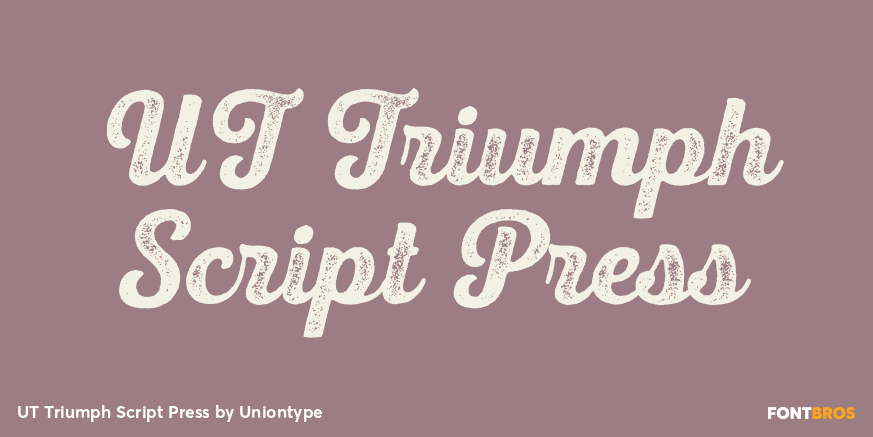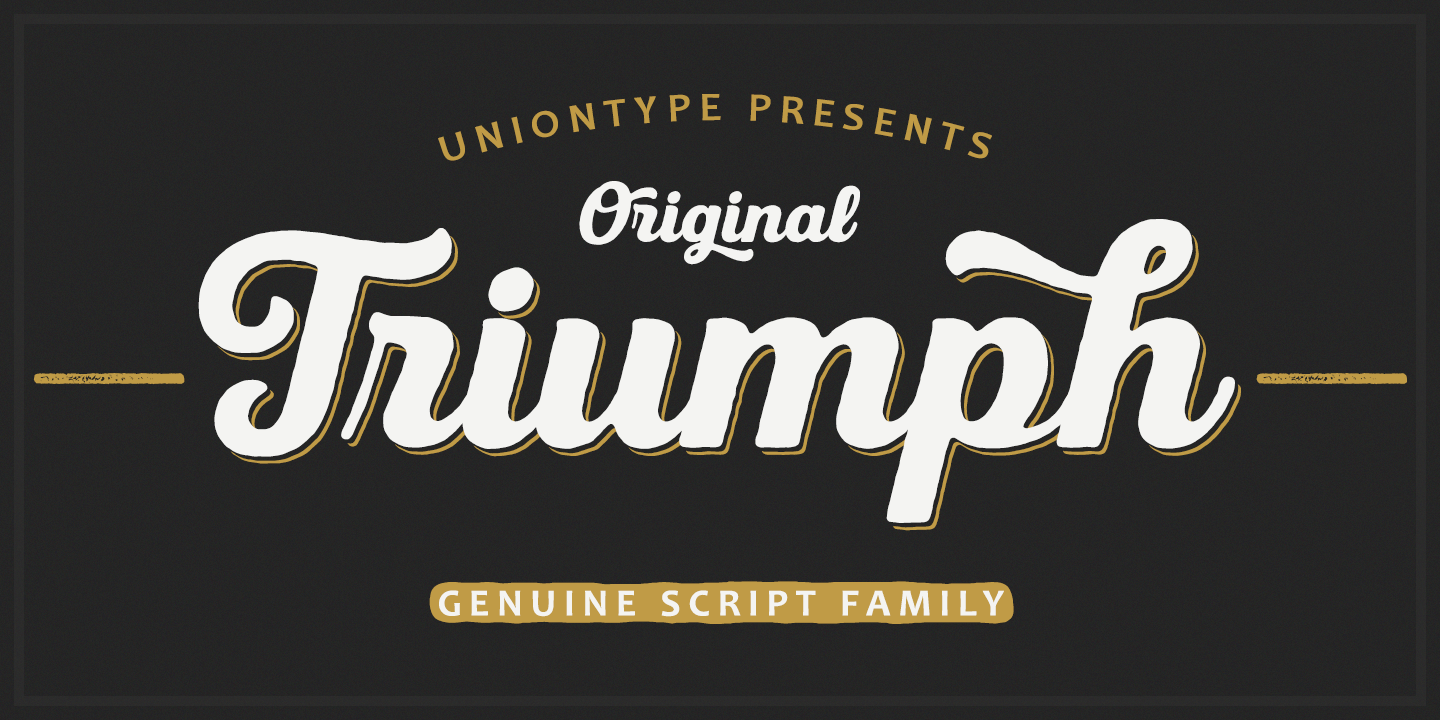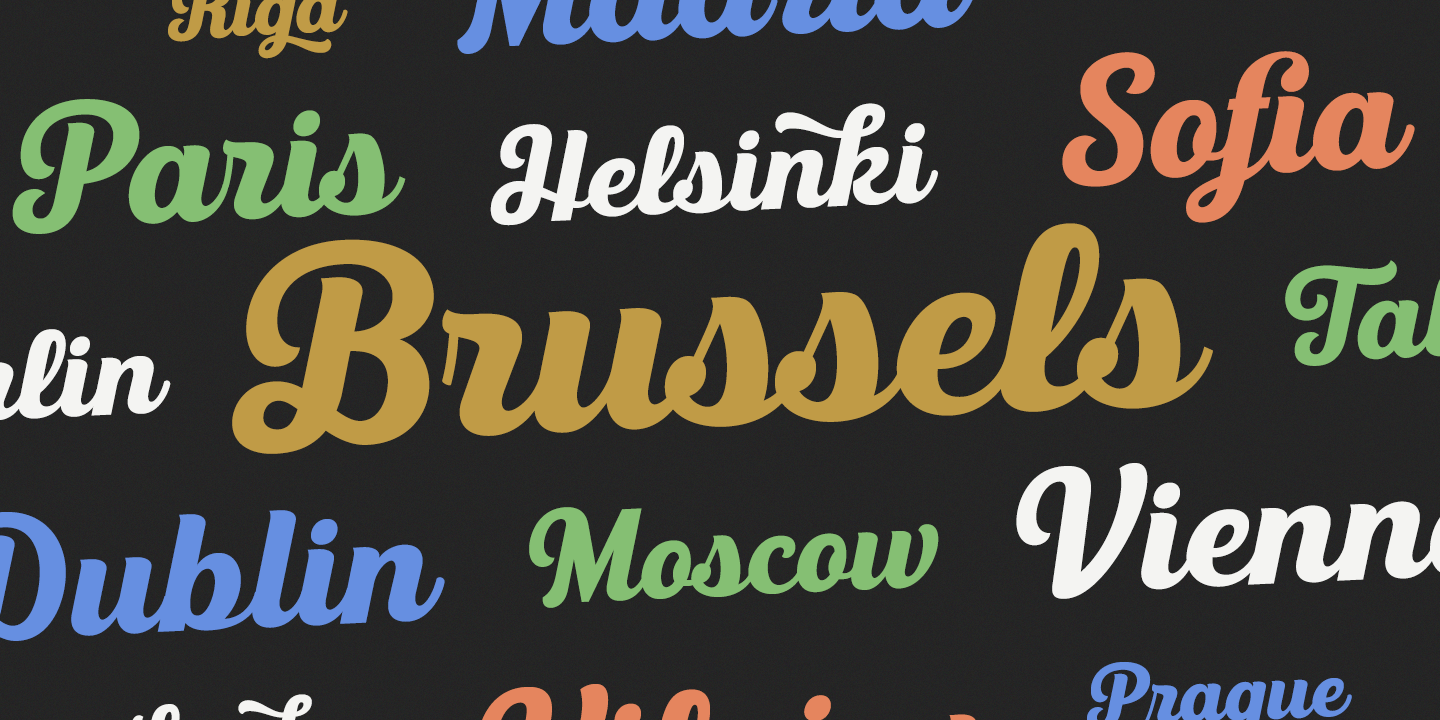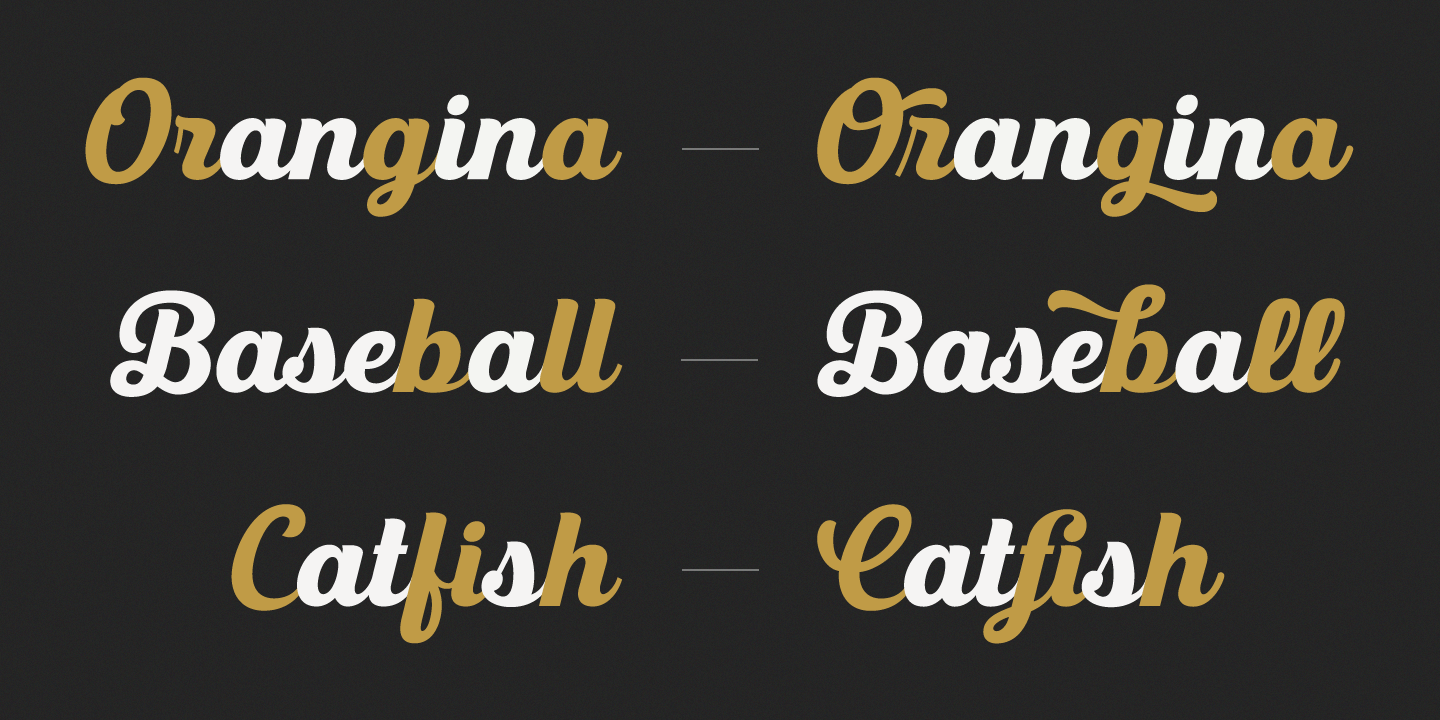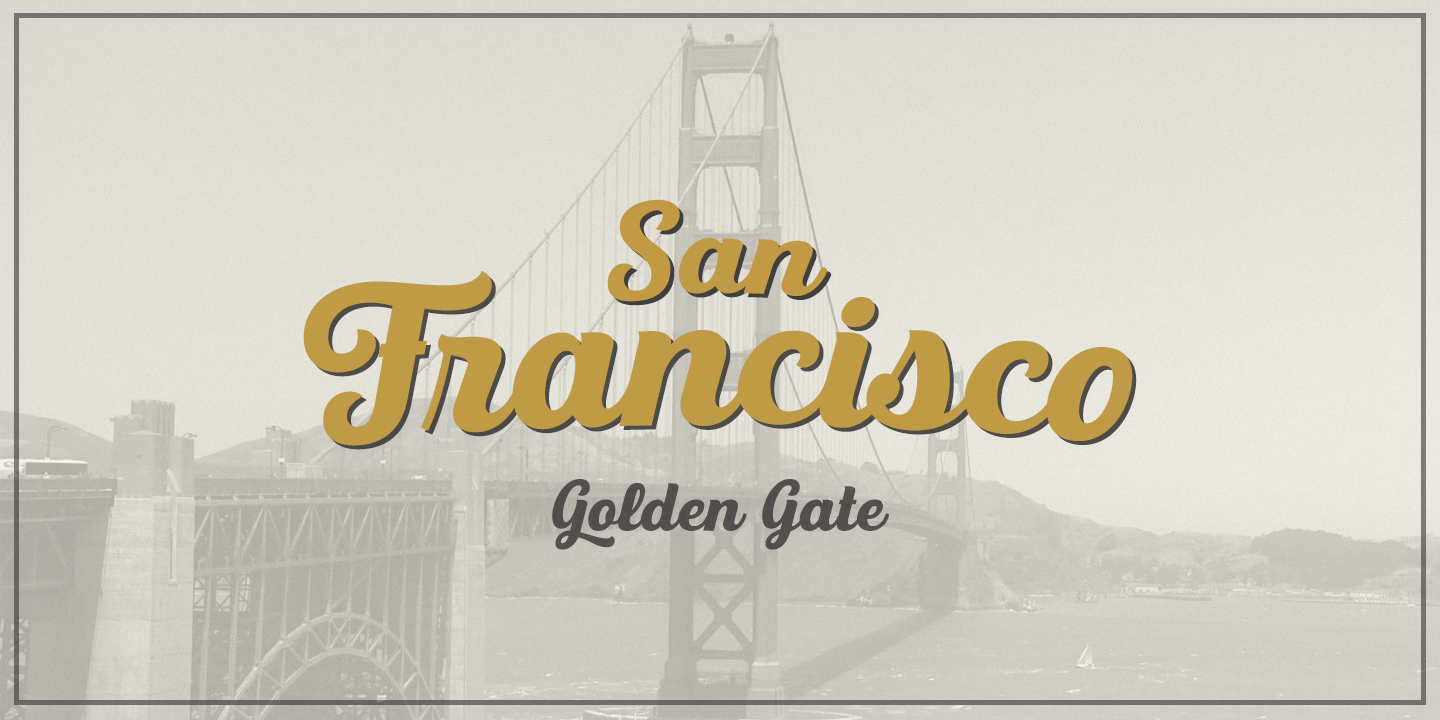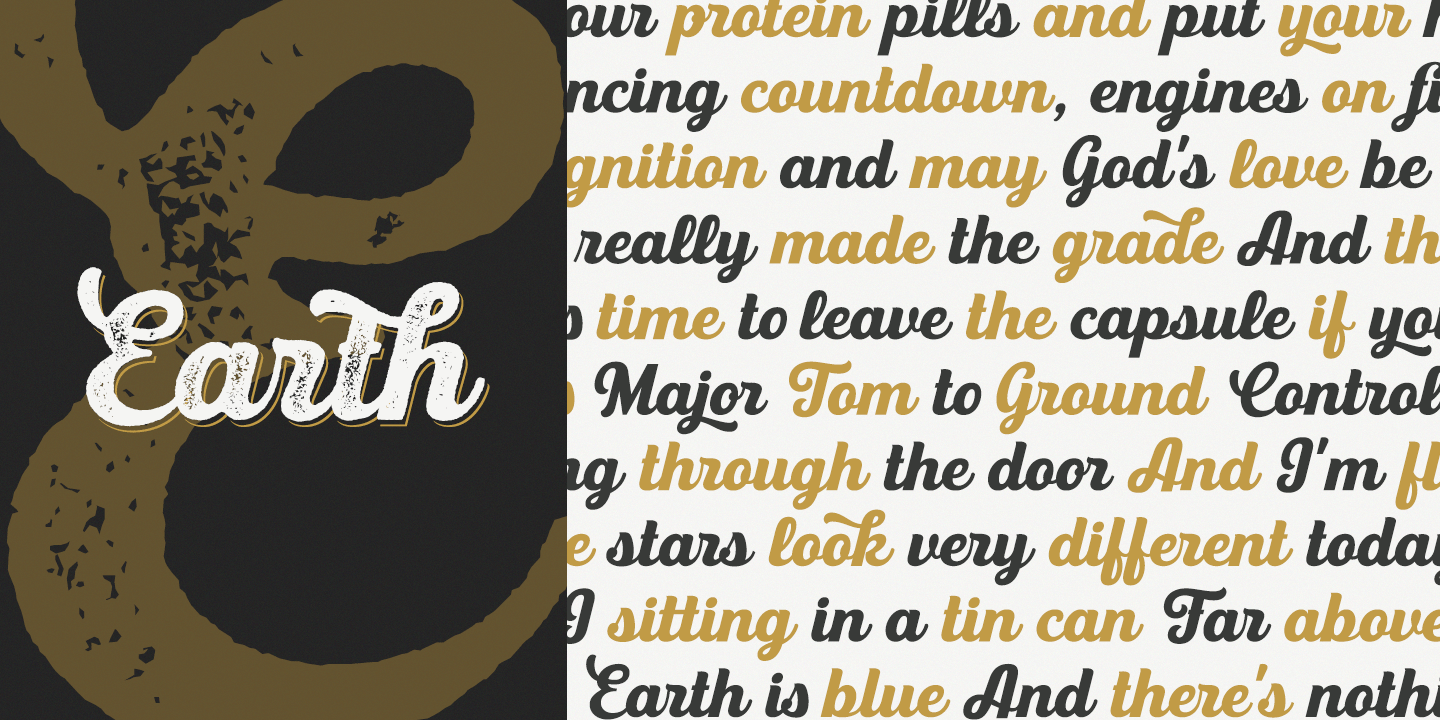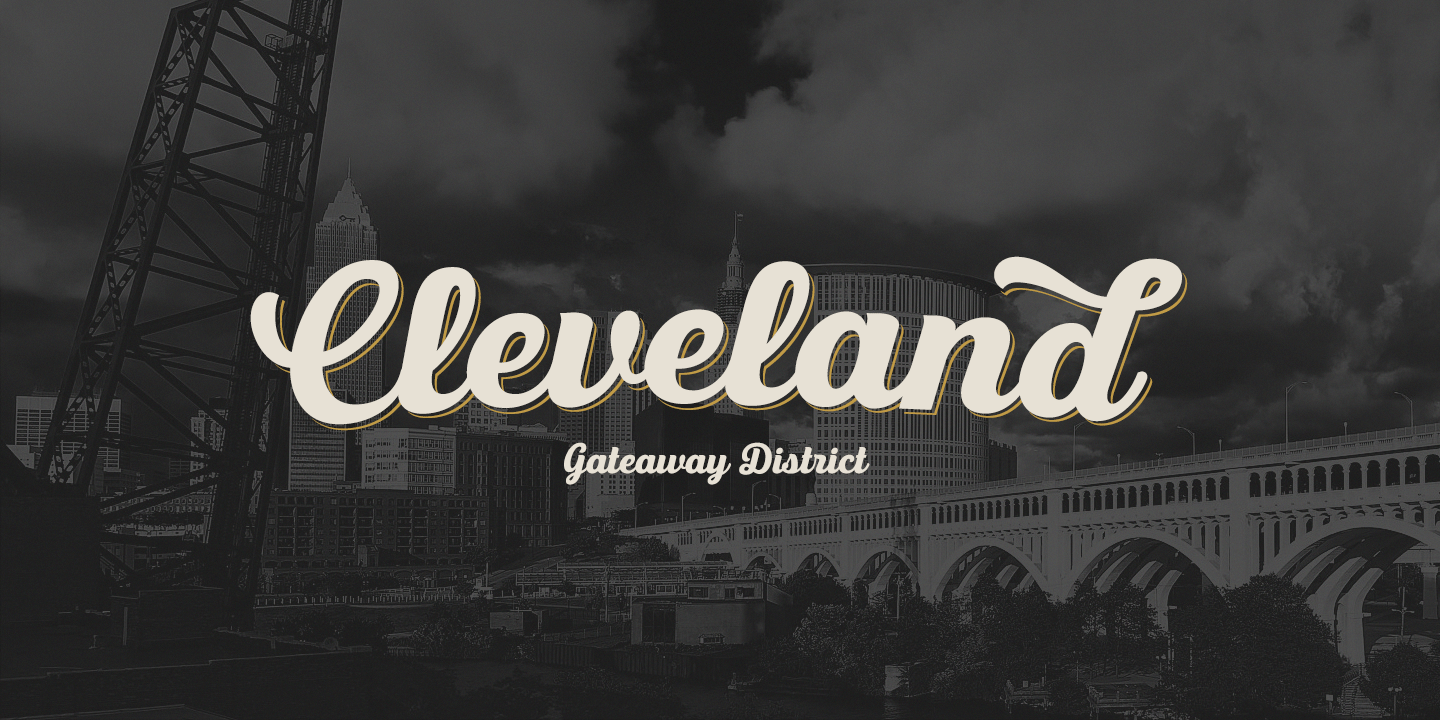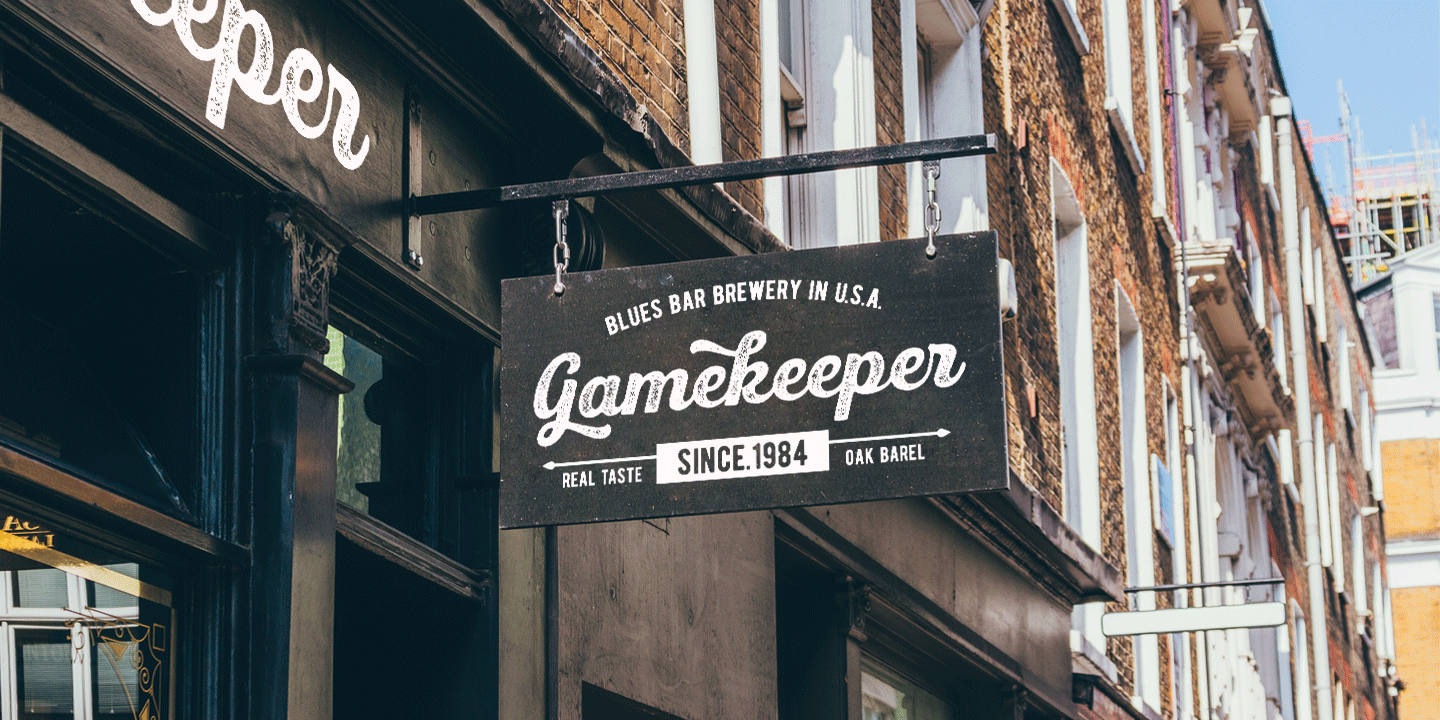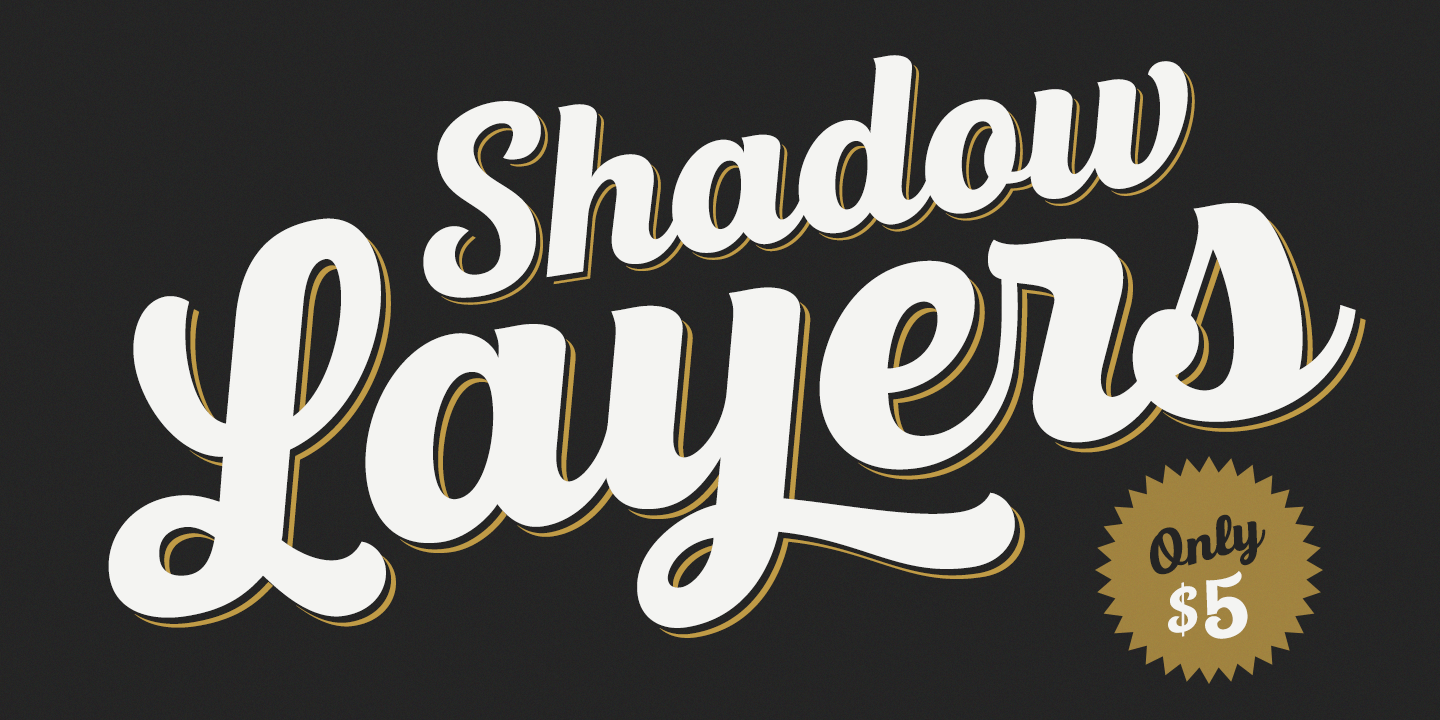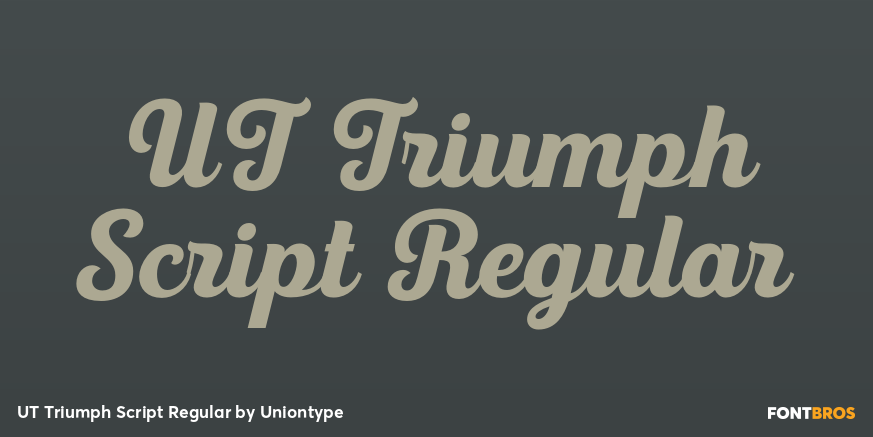
UT Triumph Script
Font Family by Uniontype
UT Triumph Script by Uniontype is a modern type family inspired by classic Americana scripts. The family consists of regular, vintage, and press styles. Also it contains shadow layers with which you can quickly & easily add depth of UT Triumph Script by duplicating the text layer and switching it to Shadow. Choose ?olor and offset according to your taste. UT Triumph Script provides advanced typographical support with contextual alternates, ligatures and swashes. UT Triumph Script is good for menu, signs, packaging, posters, letterings and logos. Use the vintage and press styles to feel the true spirit of new retro!